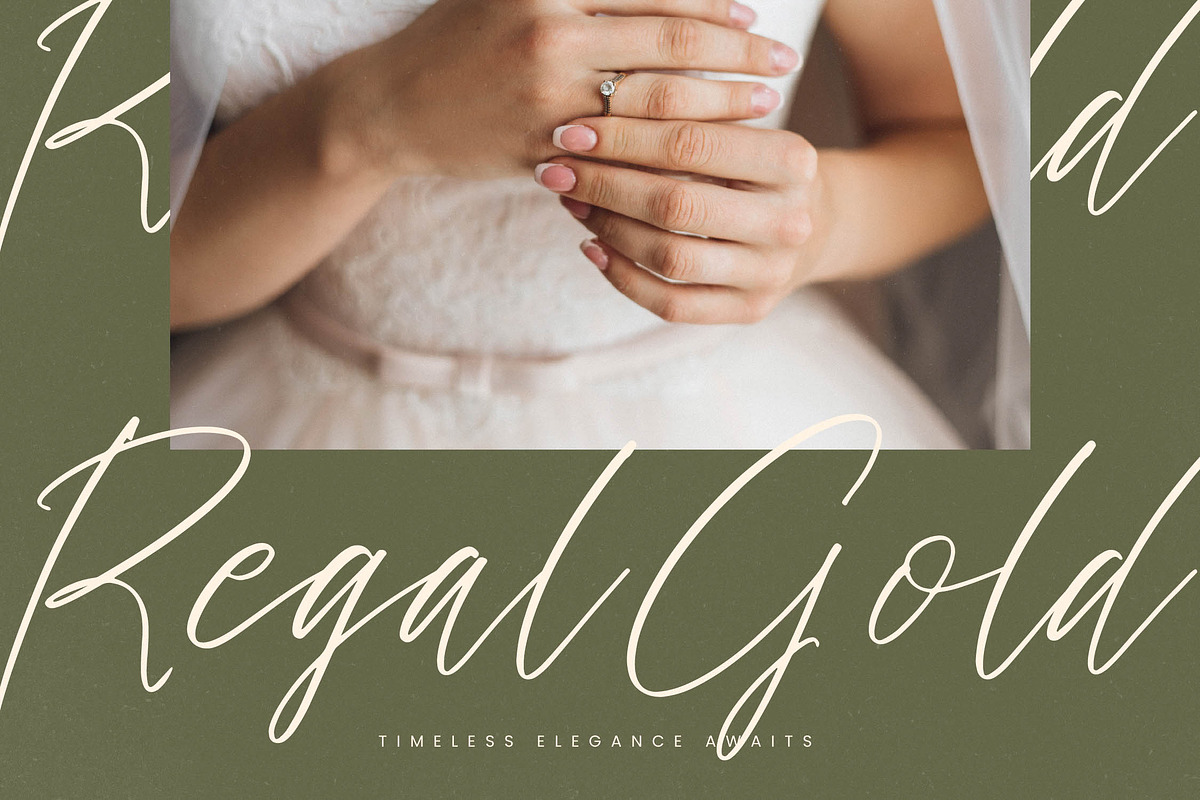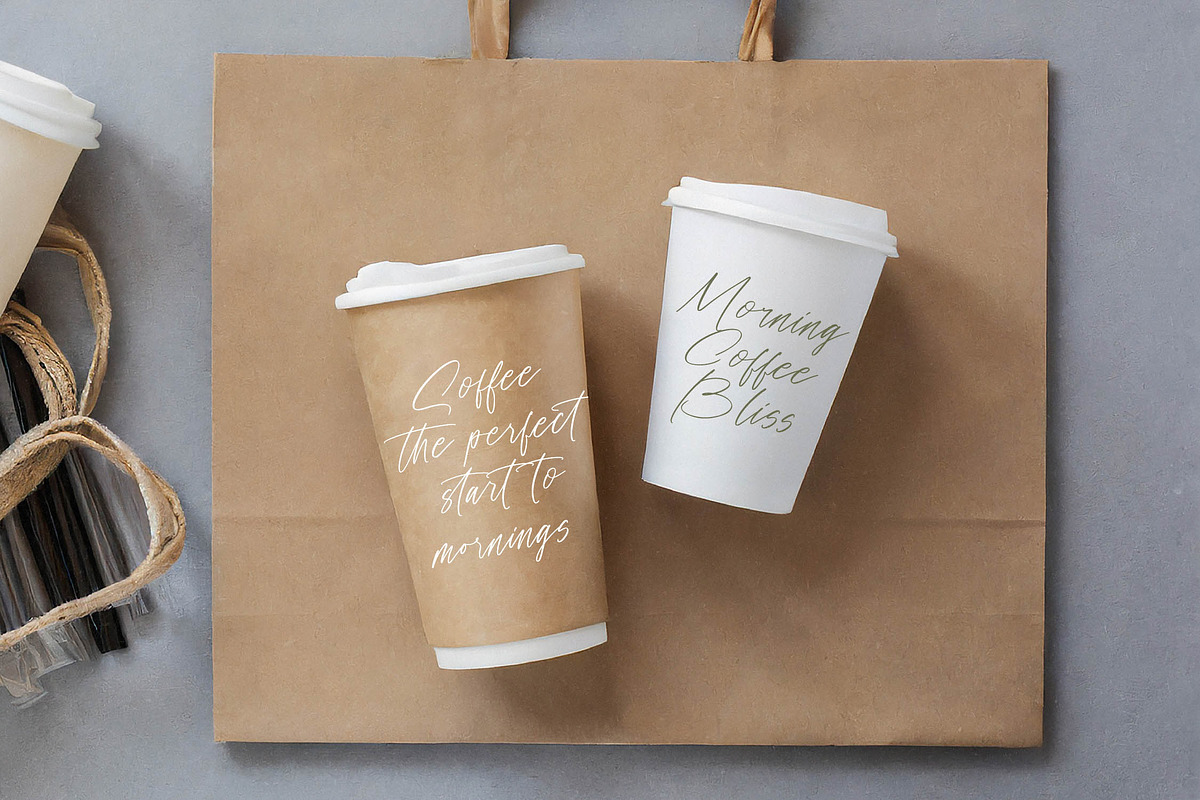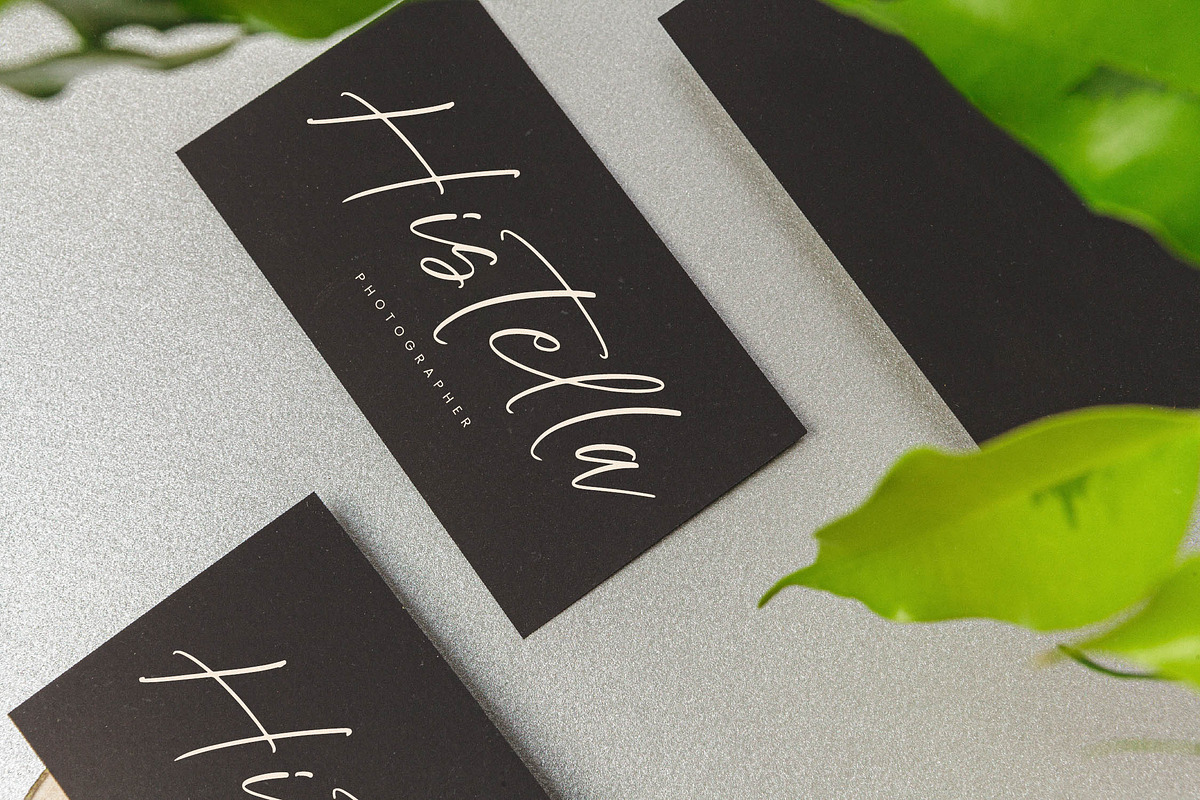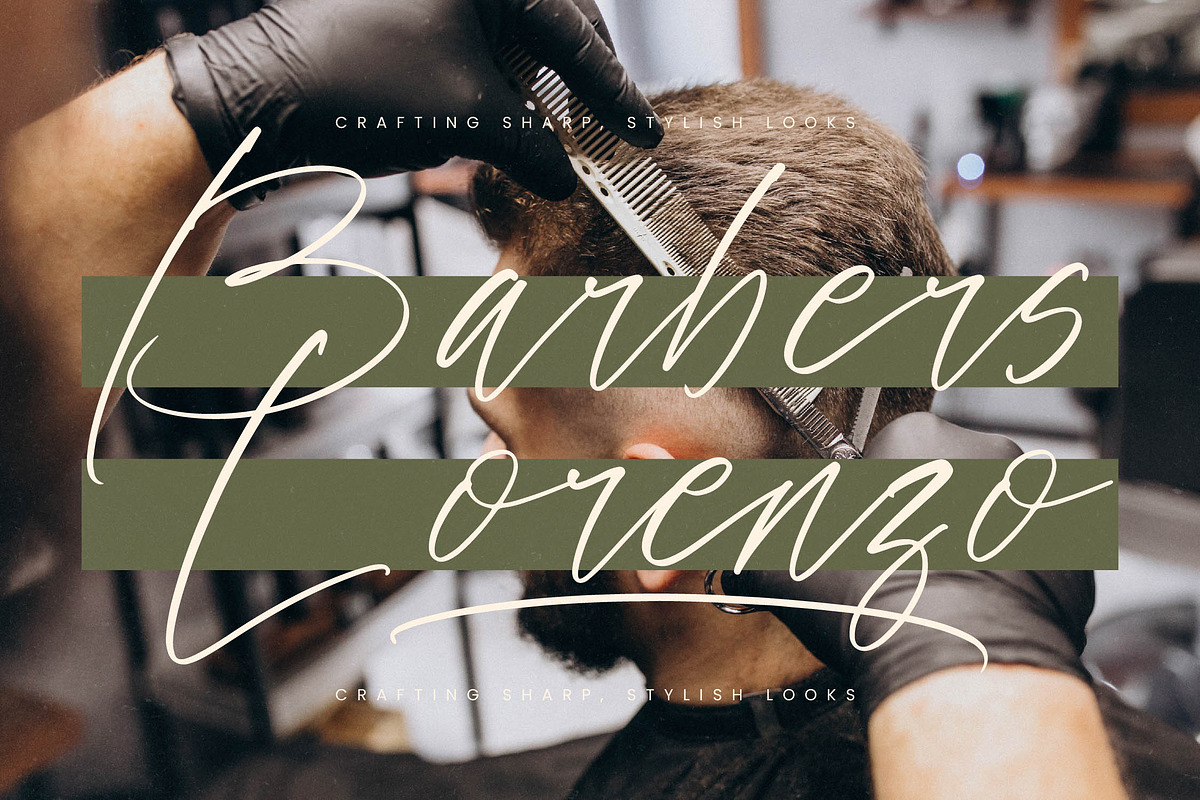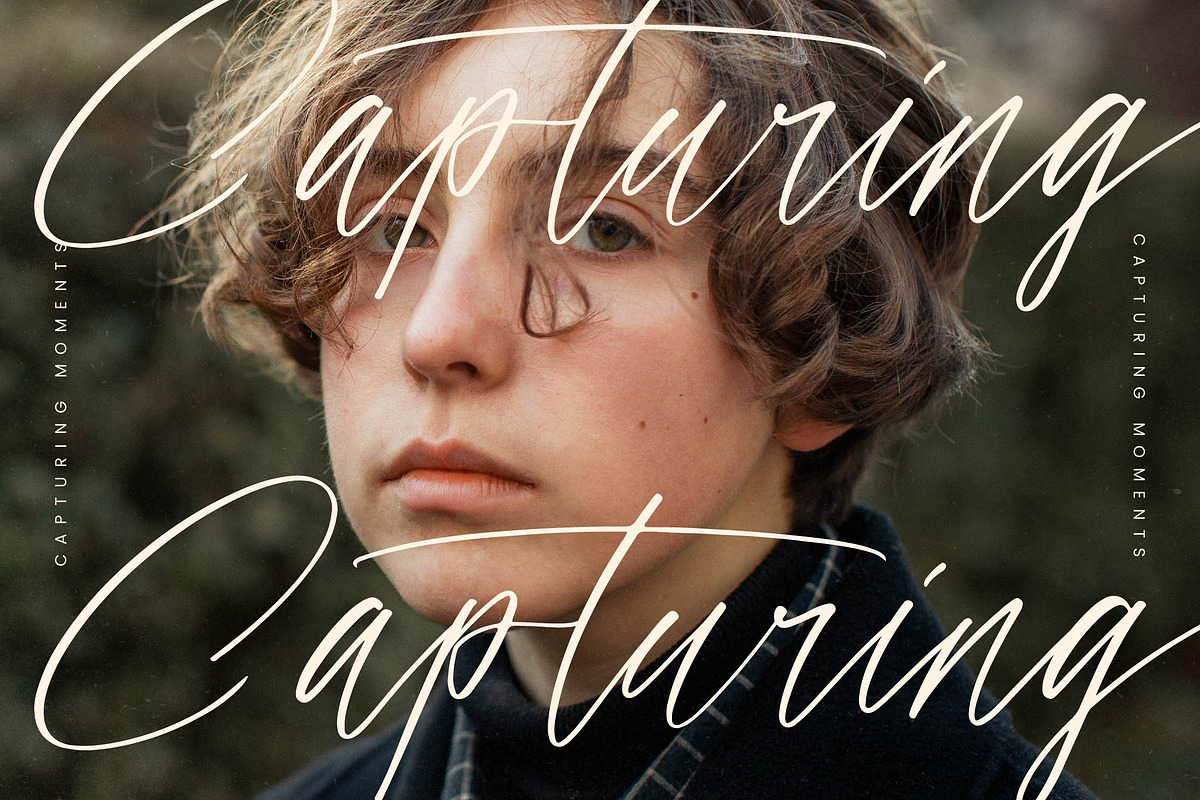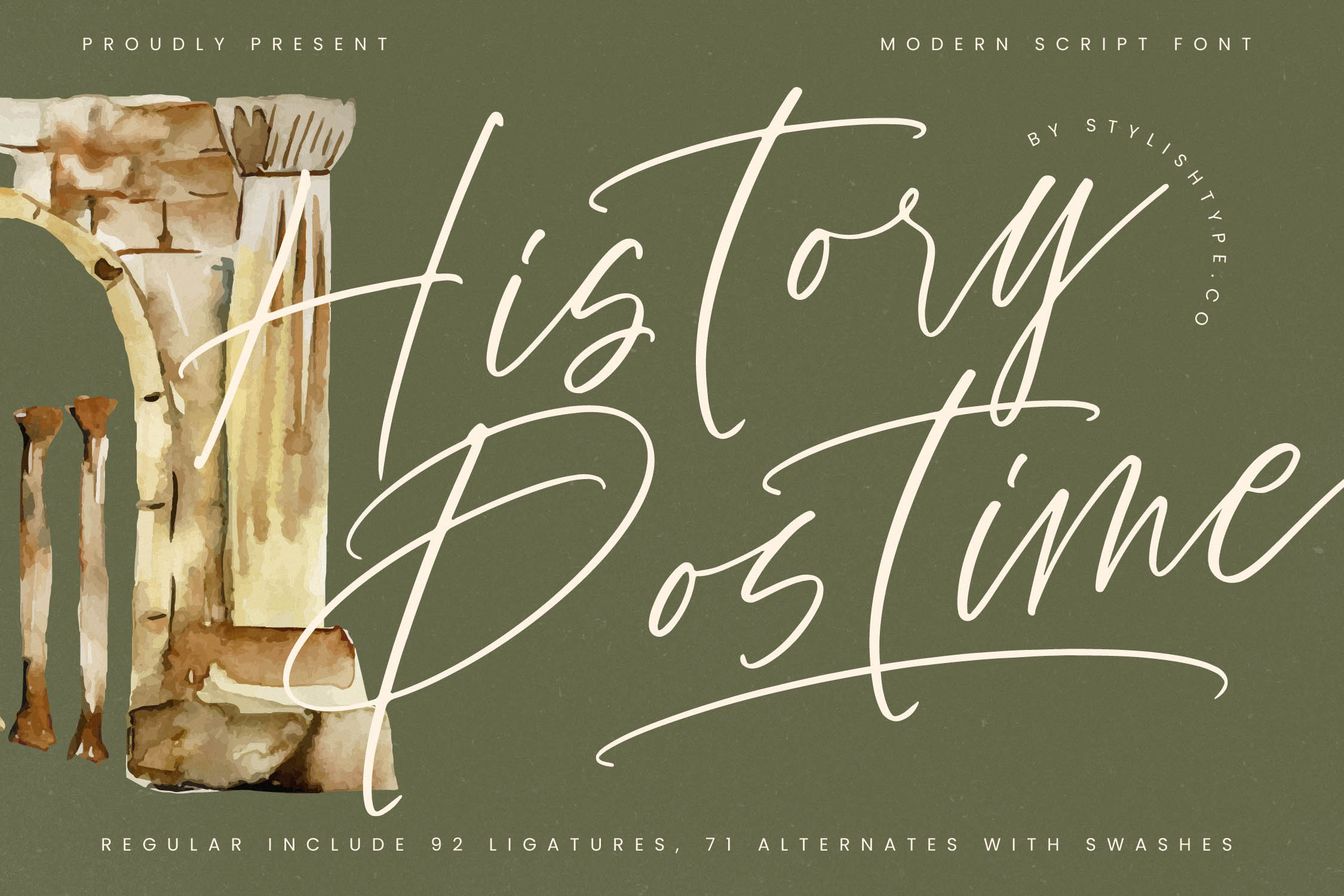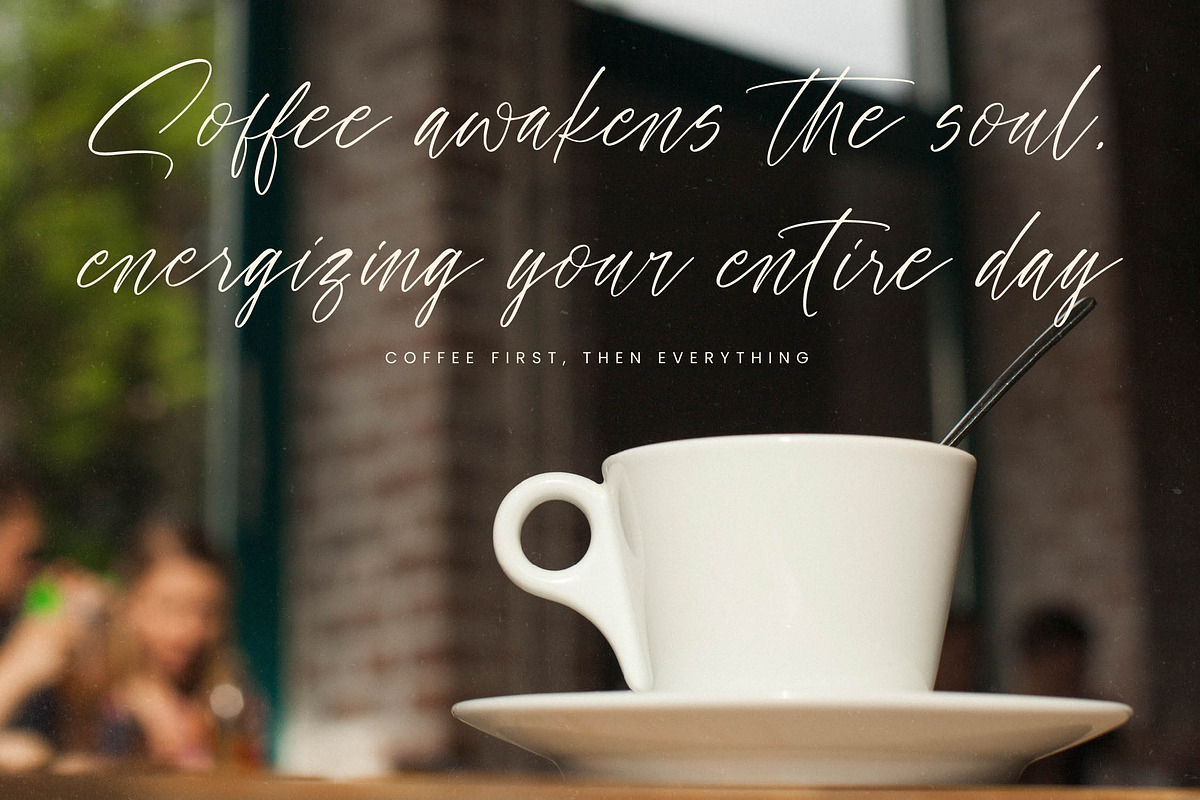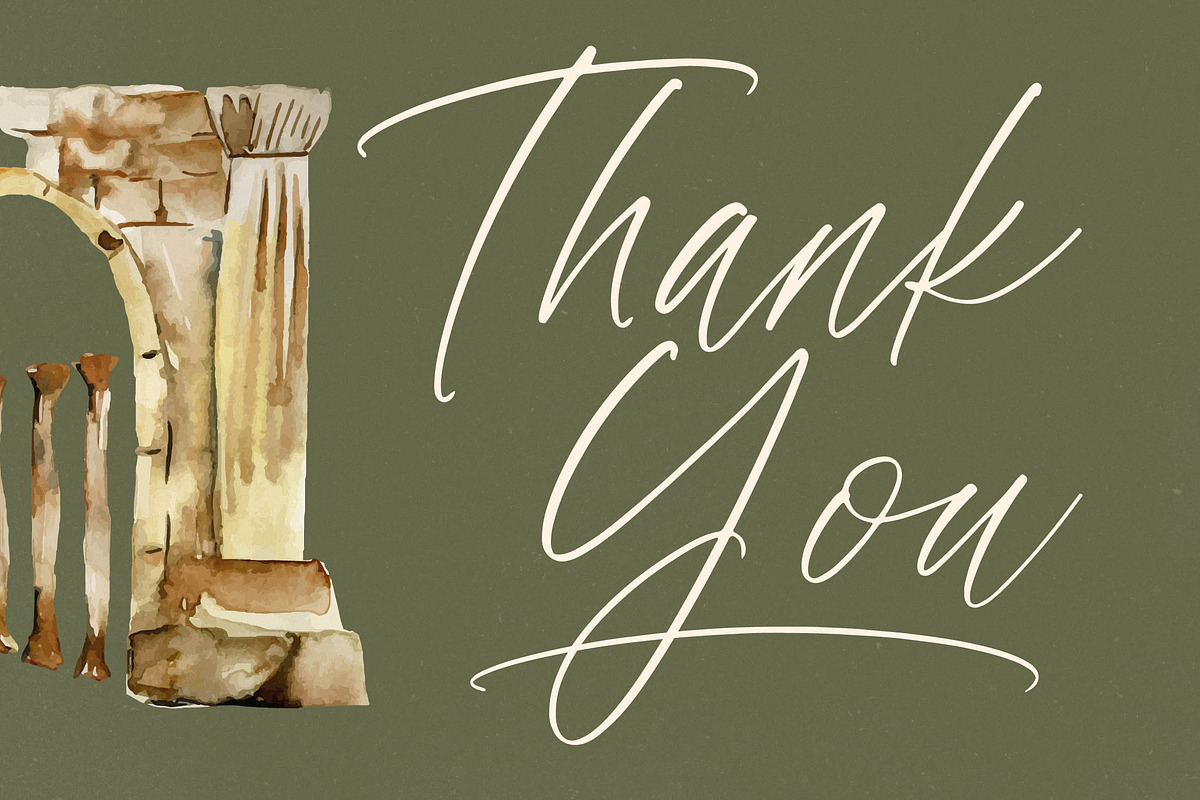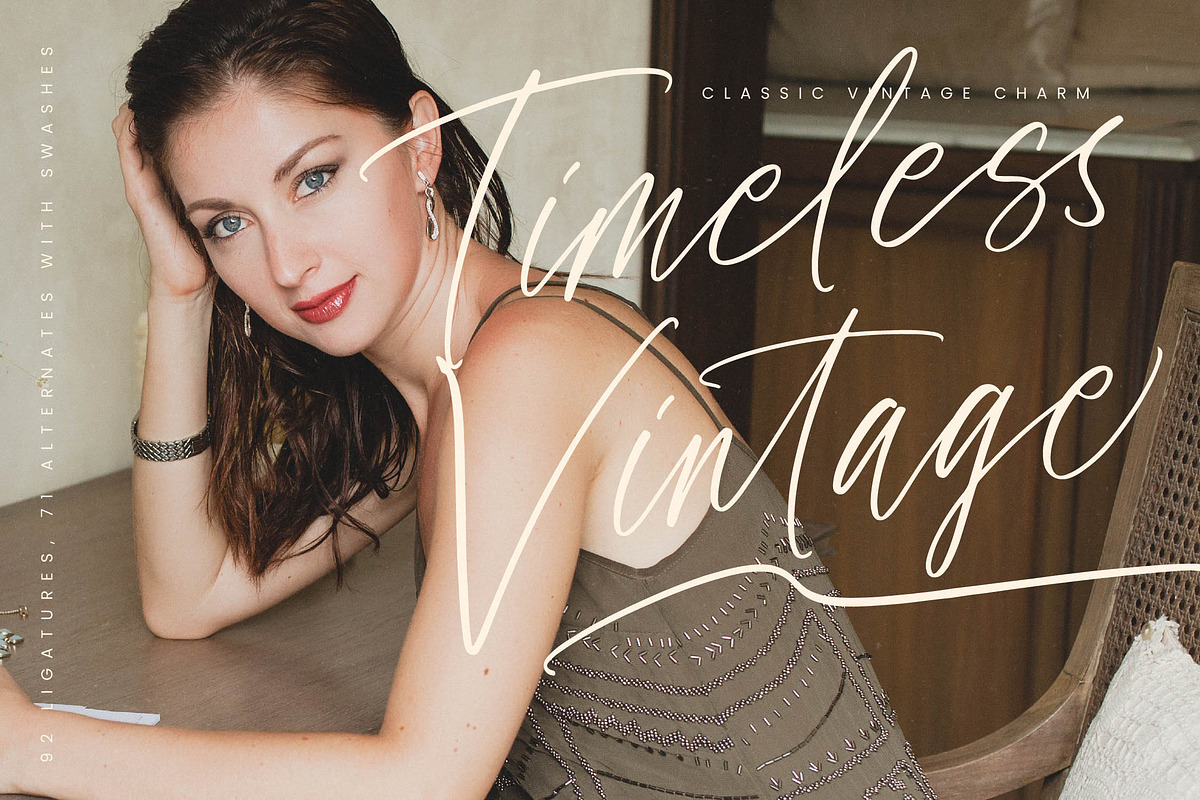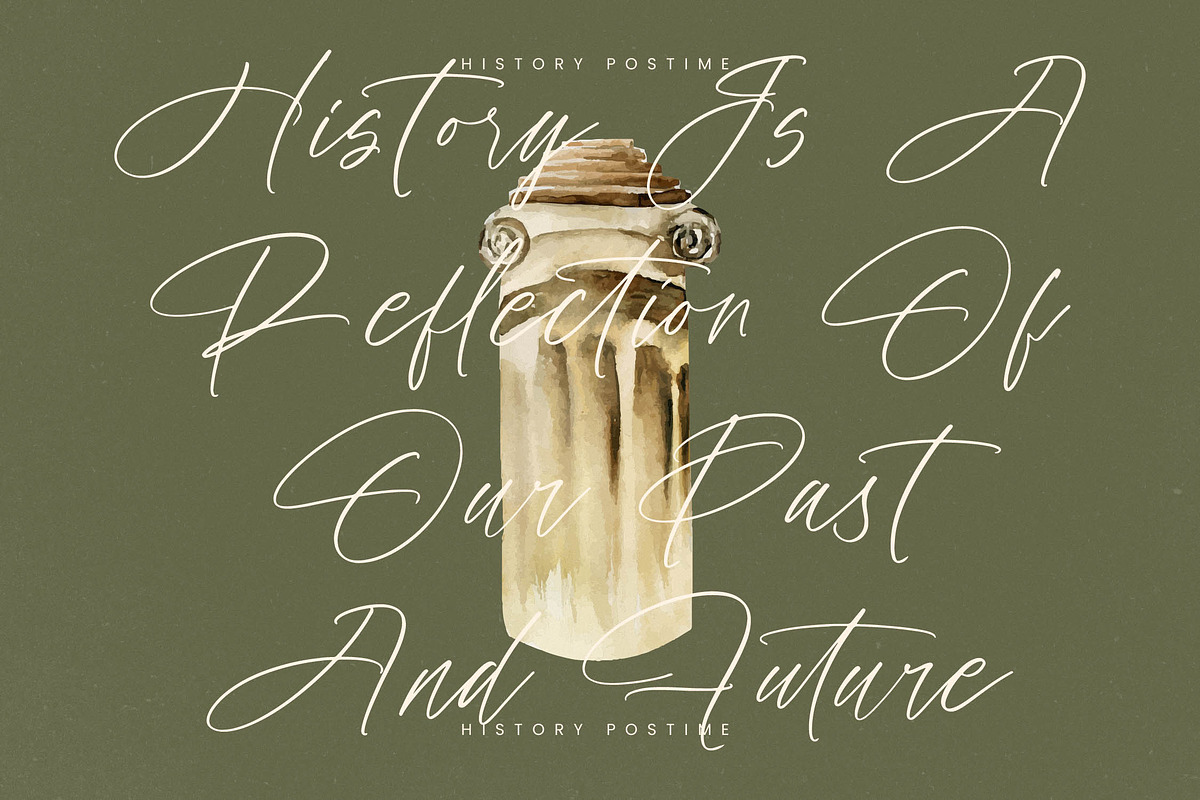
History Postime Modern Script Font
History Postime - Modern Script Font , from Stylishtype.Co , Suitable for any projects such as: logos, branding projects, homeware designs, product packaging, mugs, quotes, posters, shopping bags, t-shirts, book covers, name card, invitation cards, greeting cards, label, photography, watermark, special events, and all your other luxury and beautiful projects that need a Luxury Script taste.
- 92 Ligature 71 Alternates & Swashes